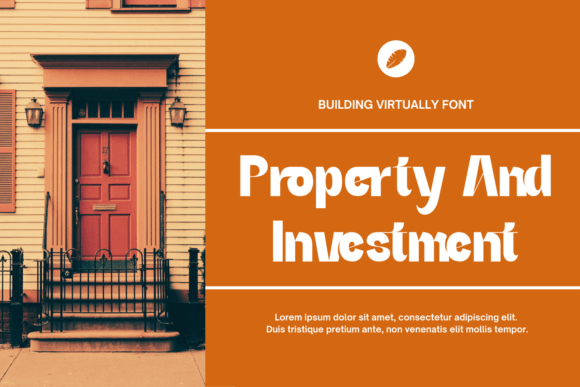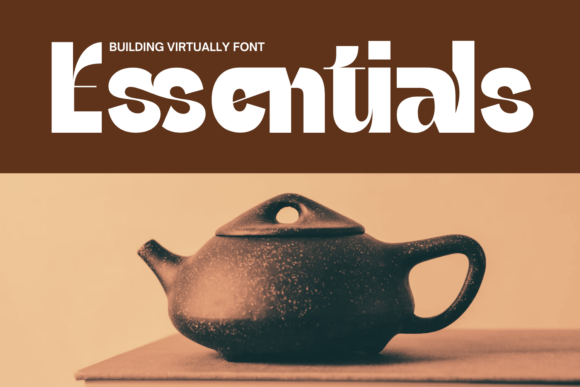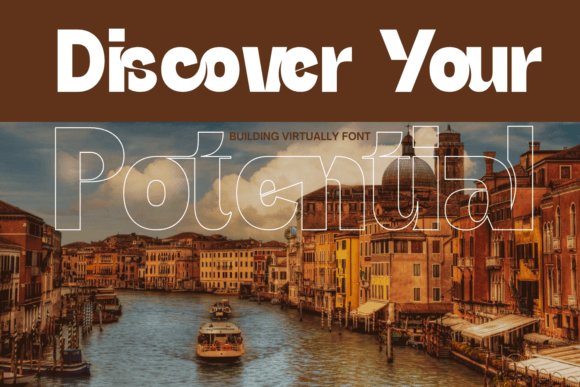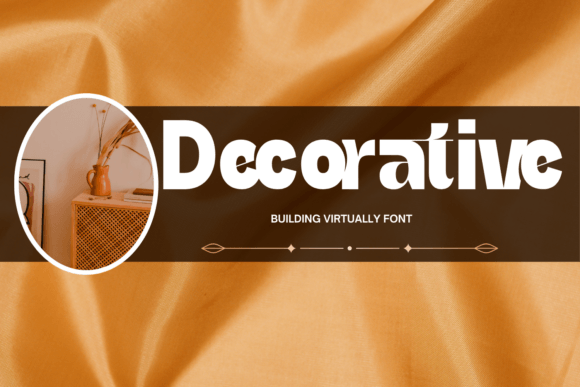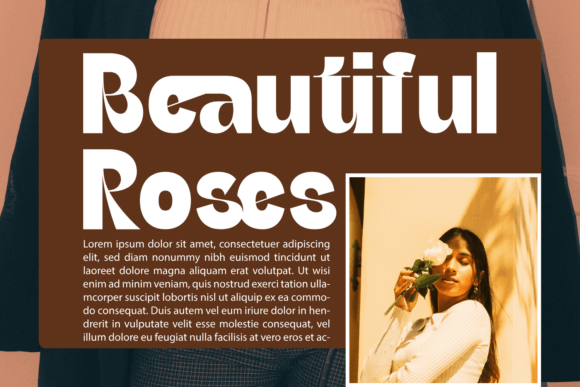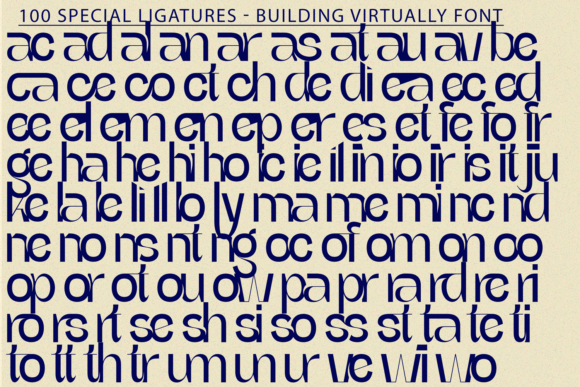
Introducing Building Virtually Font: A Modern Sans-Serif Marvel
In the realm of typography, a well-crafted font can elevate a design project from ordinary to extraordinary. Meet Building Virtually Font, a modern sans-serif font that embodies the perfect blend of simplicity, elegance, and versatility. With its clean lines, balanced proportions, and experimental edge, this font is poised to become a go-to choice for designers and crafters seeking a professional and adaptable aesthetic.
Building Virtually Font boasts two weights, ensuring that it can seamlessly transition from body copy to word-marks. Its sans-serif design is characterized by:
- Clean Lines: A hallmark of modern typography, the font’s clean lines create a crisp, contemporary look that’s perfect for branding, editorial design, and digital interfaces.
- Balanced Proportions: The font’s balanced proportions ensure that it exudes a sense of elegance and sophistication, making it suitable for a wide range of projects.
OpenType Features
Building Virtually Font was built with OpenType features, which provide a range of typographic tools to enhance the design process. Some of the key features include:
- 100 Ligatures: Add a touch of elegance to your text with the font’s extensive ligature set, perfect for creating beautiful, flowing text.
- Alternates: Switch between different letterforms to add visual interest and create unique typographic expressions.
- Numbers, Punctuation, and Language Support: The font includes a comprehensive set of numbers, punctuation, and language support, ensuring that it can be used for a wide range of projects.
Ideal Applications
Building Virtually Font is an incredibly versatile typeface, suitable for a variety of applications, including:
- Mastheads: Create stunning headlines and titles with the font’s bold, eye-catching design.
- Pull Quotes: Use the font to create elegant, attention-grabbing pull quotes that add a touch of sophistication to any publication.
- Fashion Editorials: The font’s elegant, refined design makes it perfect for fashion editorials, where typography plays a crucial role in setting the tone and aesthetic.
- Branding: Building Virtually Font is an excellent choice for branding projects, providing a professional and adaptable aesthetic that can be used across a range of mediums.
- Editorial Design: The font’s clean lines and balanced proportions make it perfect for editorial design, where readability and typography are paramount.
- Digital Interfaces: With its versatile design and extensive OpenType features, Building Virtually Font is well-suited for digital interfaces, including websites, apps, and more.
Why Choose Building Virtually Font?
With so many fonts available, why choose Building Virtually Font? Here are just a few reasons why designers and crafters will love this modern sans-serif marvel:
- Unique yet Classic: The font strikes the perfect balance between uniqueness and classic elegance, ensuring that it will stand out in any design.
- Versatility: With its two weights, extensive OpenType features, and adaptable design, Building Virtually Font can be used for a wide range of projects.
- Professional Aesthetic: The font’s clean lines, balanced proportions, and elegant design ensure that it delivers a professional aesthetic suitable for even the most discerning clients.
In conclusion, Building Virtually Font is a modern sans-serif font that offers a unique blend of simplicity, elegance, and versatility. With its clean lines, balanced proportions, and extensive OpenType features, it’s the perfect choice for designers and crafters seeking a professional and adaptable aesthetic. Whether you’re working on branding, editorial design, digital interfaces, or fashion editorials, Building Virtually Font is sure to become a valuable addition to your typographic toolkit.